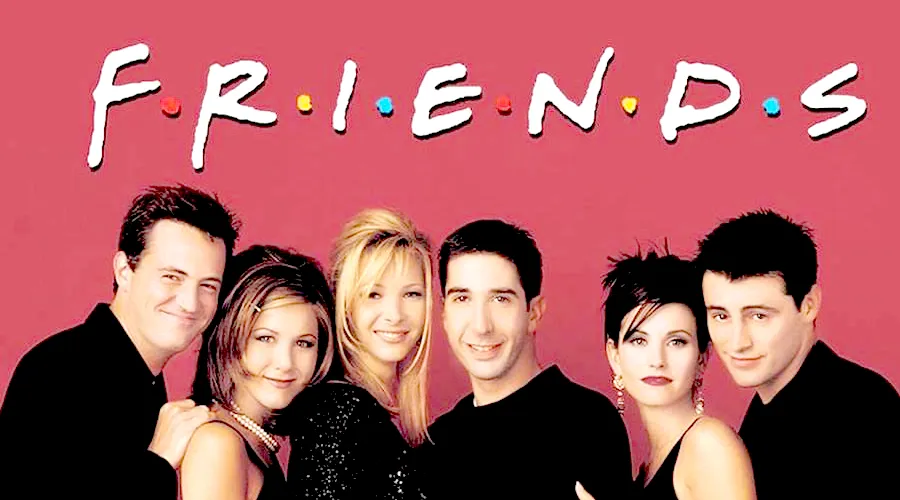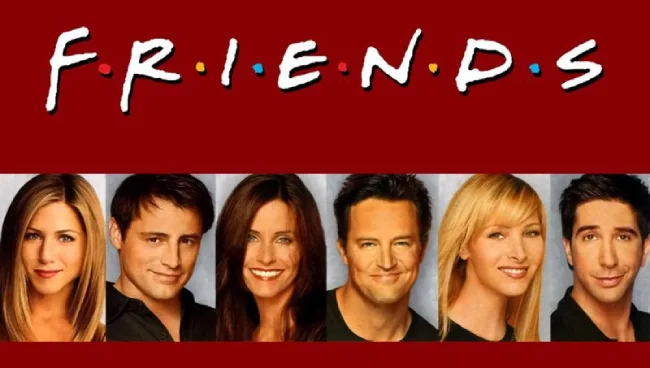
Friends Font
The “Friends” font, featured in the iconic American television sitcom “Friends,” is a custom-designed font that was created specifically for the show’s logo.
Friends TV Show Logo
While the exact font is not available for public use, there are several free fonts that closely resemble the style used in the logo. These fonts include:
Gabriel Weiss’ Friends Font (Similar)
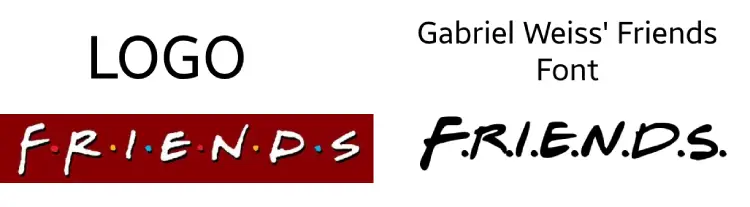
Gabriel Weiss Friends Font VS Logo
Both Gabriel Weiss’ Friends Font and the original “Friends” logo have become synonymous with the iconic sitcom’s cheerful and quirky aesthetic. It is an excellent choice for recreating the Friends logo’s style in personal projects, designs, or fan art. Its a personal project by Gabriel Weiss, this font is a Script and Handwritten style. This font is free for personal use.
Minus Cre Font (Replica)
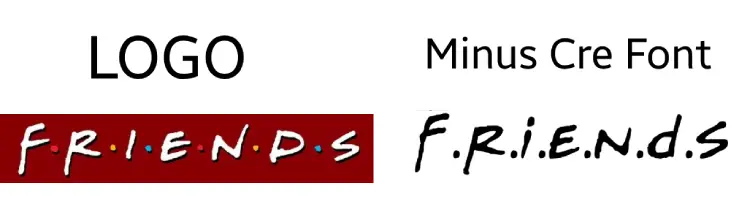
Minus Cre Font Vs Friends font Logo
The Minus Cre font, designed by Fred Cre, often gets mentioned alongside the iconic Friends logo due to their similar vibes. This font is also free and suitable for recreating the “Friends” logo for personal projects.
Friday Night Font (Similar)
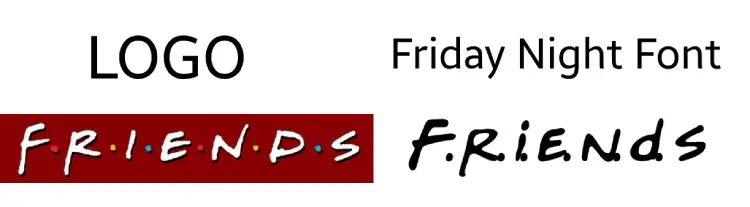
Friday Night Font Vs Friends Logo
The Friday Night Font by graphicsauceco and the iconic Friends TV show logo share a playful, retro vibe that evokes a sense of carefree fun. While not identical twins, they have enough similarities and differences to make them interesting to compare.